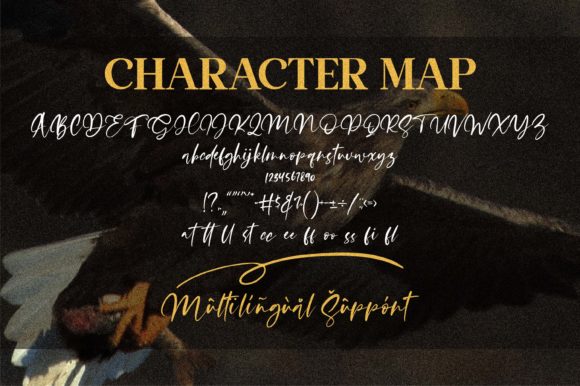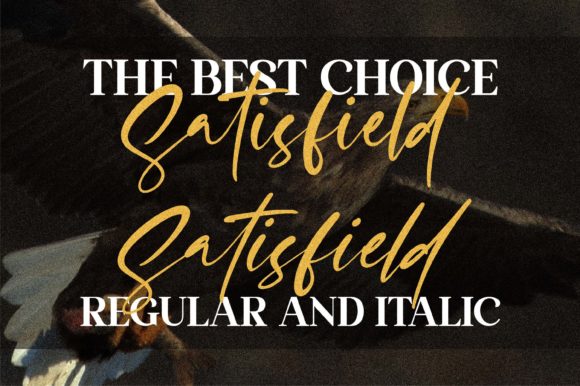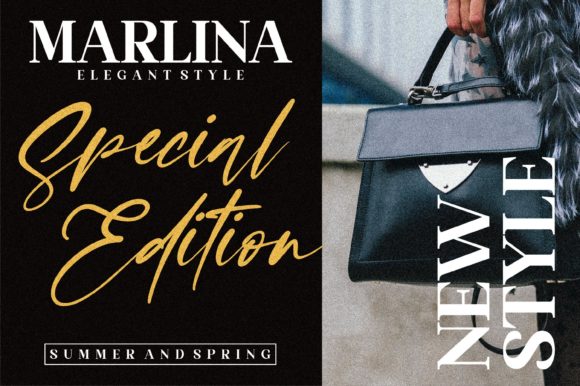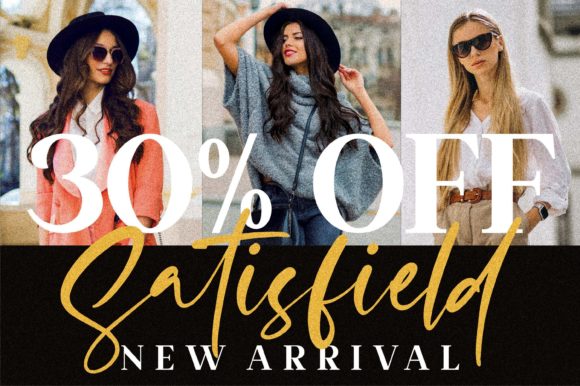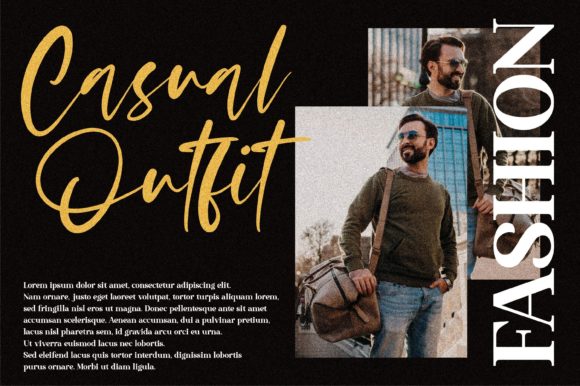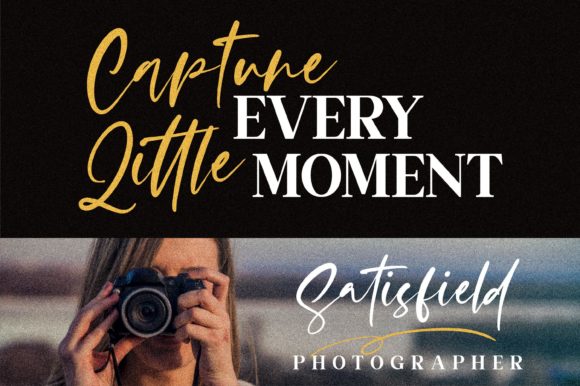
Introduction to Satisfield Font
Have you ever stared at a blank canvas, feeling the creative block that comes with every project? The cursor blinks, taunting you to start, but your mind is a jumble of ideas. That’s when you need a little inspiration to get the ball rolling. For designers, the perfect font can be the spark that sets the creative wheels in motion. And that’s exactly what the Satisfield Font offers – a stylish and delicate paint-brushed script font that adds a touch of elegance to any design.
Whether you’re working on a high-quality project or just need a reliable design resource, the Satisfield Font is an excellent choice. Its clean, thin, and smooth vibe makes it perfect for a wide range of creative projects, from invitations to social media graphics. And the best part? It’s available for free download with a transparent background, making it easy to integrate into your design.
Key Features of Satisfield Font
- High-quality design resource ideal for creative projects, including logos, branding, and graphics.
- Features a transparent background, making it easy to integrate into designs and maintain a clean, minimalist aesthetic.
- Includes a range of font styles and weights, allowing designers to customize their creative projects with precision and flair.
- Designed with a focus on legibility and readability, ensuring that text remains clear and easy to understand across various resolutions and devices.
- Available in 5 font sizes, from 12 to 72 points, making it suitable for a wide range of design applications, from small text to headings and titles.
- Resolution: 300 DPI, ensuring crisp and clear text even when scaled up or down.
Honest Review: Satisfield Font
I recently stumbled upon the Satisfield Font and I must say, it’s a hidden gem for designers. As a designer myself, I’m always on the lookout for high-quality design resources that can elevate my creative project to the next level.
Here are some things that work well with the Satisfield Font:
- ✨ High-quality typography: The font is crisp and clear, making it perfect for a wide range of design applications.
- ✨ Versatile: The font is available in a range of weights and styles, making it easy to customize for different design needs.
However, there are some limitations to the Satisfield Font:
- ⚠️ Transparent background: The font may not work well with transparent backgrounds or complex designs.
Overall, I’m impressed with the Satisfield Font. It’s a great addition to any designer’s toolkit, especially for those working on creative projects that require high-quality typography. With a little creativity and experimentation, the Satisfield Font can help take your design to the next level.
Satisfield Font
The Satisfield Font is a versatile and high-quality design resource ideal for various creative projects. Its unique style and transparent background make it a valuable addition to any design toolkit.
Tips for Getting the Most Out of Satisfield Font
Experiment with different font sizes, colors, and styles to create unique and visually appealing designs. Use the transparent background feature to add a touch of elegance to your projects.
The Satisfield Font is suitable for a wide range of creative projects, including branding, marketing materials, and digital art. Its versatility makes it an excellent choice for designers and artists.